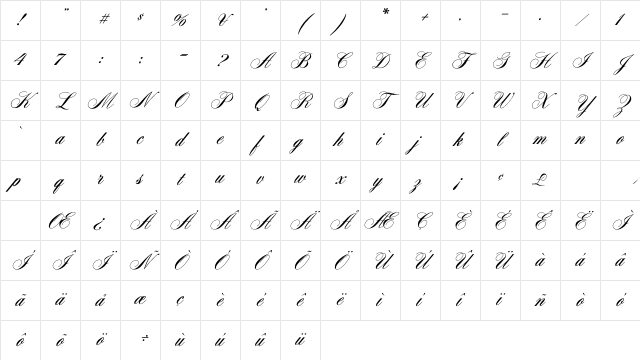
AeroliteScriptCP2 Medium
Design Context for AeroliteScriptCP2
AeroliteScriptCP2 flows with the natural rhythm of handwritten lettering, making it ideal for designs that call for warmth and personal expression.
Font Pairing: Combine AeroliteScriptCP2 with a simple geometric sans for maximum contrast - the tension between flowing curves and clean structure is a classic typographic pairing.
Pro Tip: Use AeroliteScriptCP2 for short runs of text - names, titles, or taglines. Extended body copy in script faces tires the eye quickly.